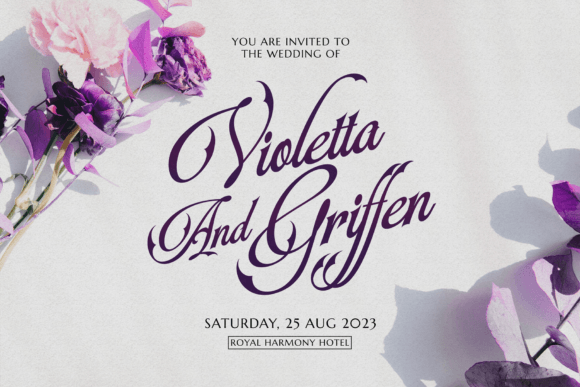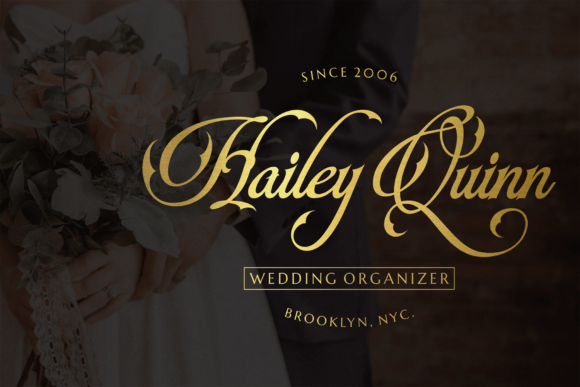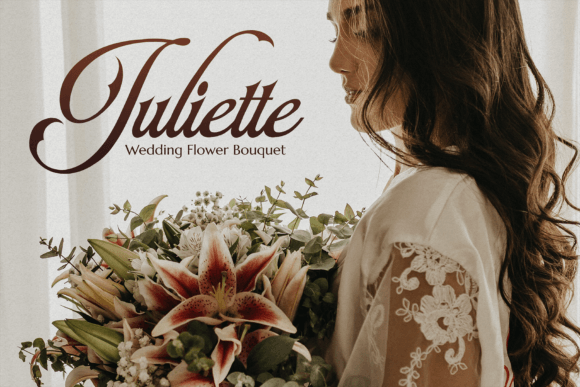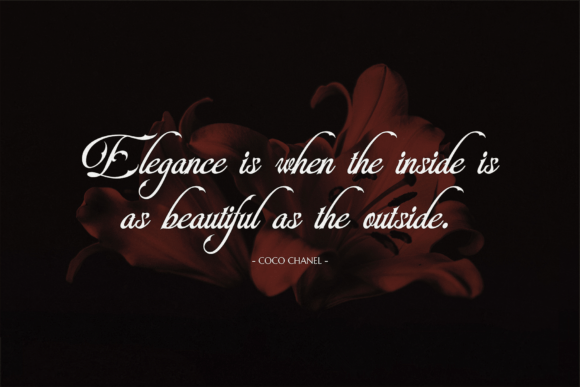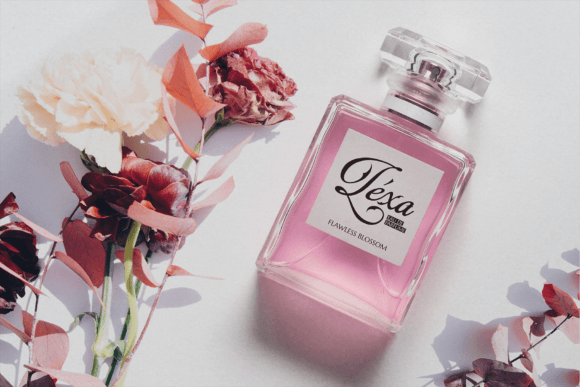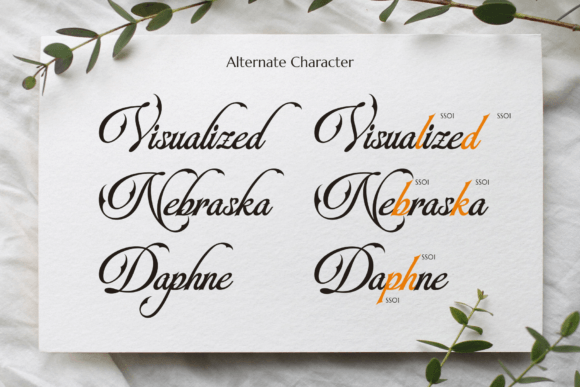
Discovering the Timeless Elegance of Alegarde Font
As a designer, there’s nothing quite like the thrill of stumbling upon a font that transports you to another era. For me, that moment came when I laid eyes on the Alegarde Font. Its classic script design, inspired by old copper plate fonts, immediately captured my attention. The subtle spires at the ends of the strokes added a touch of gothic sophistication, making it a true standout.
Alegarde Font is a versatile font that effortlessly balances tradition and modernity. Whether you’re designing a simple yet elegant wedding invitation or a luxurious copper plate-style logo, this font is sure to impress. Its beauty lies in its ability to evoke a sense of history and romance, making it an invaluable tool for designers looking to add a touch of sophistication to their projects.
Alegarde Font Key Features
- Font Family: Alegarde Font is a unique, elegant script font designed for various applications.
- Unique Characteristics: Alegarde Font features intricate, hand-drawn details and subtle flourishes, giving it a sophisticated and luxurious feel.
Alegarde Font Review
Alegarde Font is a beautiful script font that can add a touch of elegance to any design project. ✨ It has a high-end feel to it, making it perfect for luxury brands or high-end marketing materials. The font’s curves are smooth and fluid, and the letterforms are well-connected, creating a sense of movement and flow.
One of the standout features of Alegarde Font is its versatility. ✨ It can be used for a wide range of applications, from headings to body text, and can be easily paired with other fonts to create a unique visual identity. The font also comes in multiple weights, making it easy to achieve the right level of emphasis and hierarchy in your design.
However, there are some limitations to consider: ⚠️ The font may not be suitable for projects that require a lot of bold or condensed text, as it can become difficult to read. Additionally, the font’s high-end feel may not be suitable for every brand or project, and may come across as overly luxurious or pretentious.
- High-end feel and luxurious aesthetic
- Smooth and fluid curves
- Well-connected letterforms
- Multiple weights available
- Versatile and suitable for a wide range of applications
Overall, I would recommend Alegarde Font for projects that require a touch of elegance and sophistication. However, it’s essential to carefully consider the project’s tone and audience before using this font, to ensure it aligns with the brand’s visual identity and messaging.
Getting the Most Out of Alegarde Font
To get the most out of Alegarde Font, use it in bold and italics to add emphasis to your text. You can also pair it with other fonts to create a unique and eye-catching design.
Alegarde Font is perfect for creative projects such as: